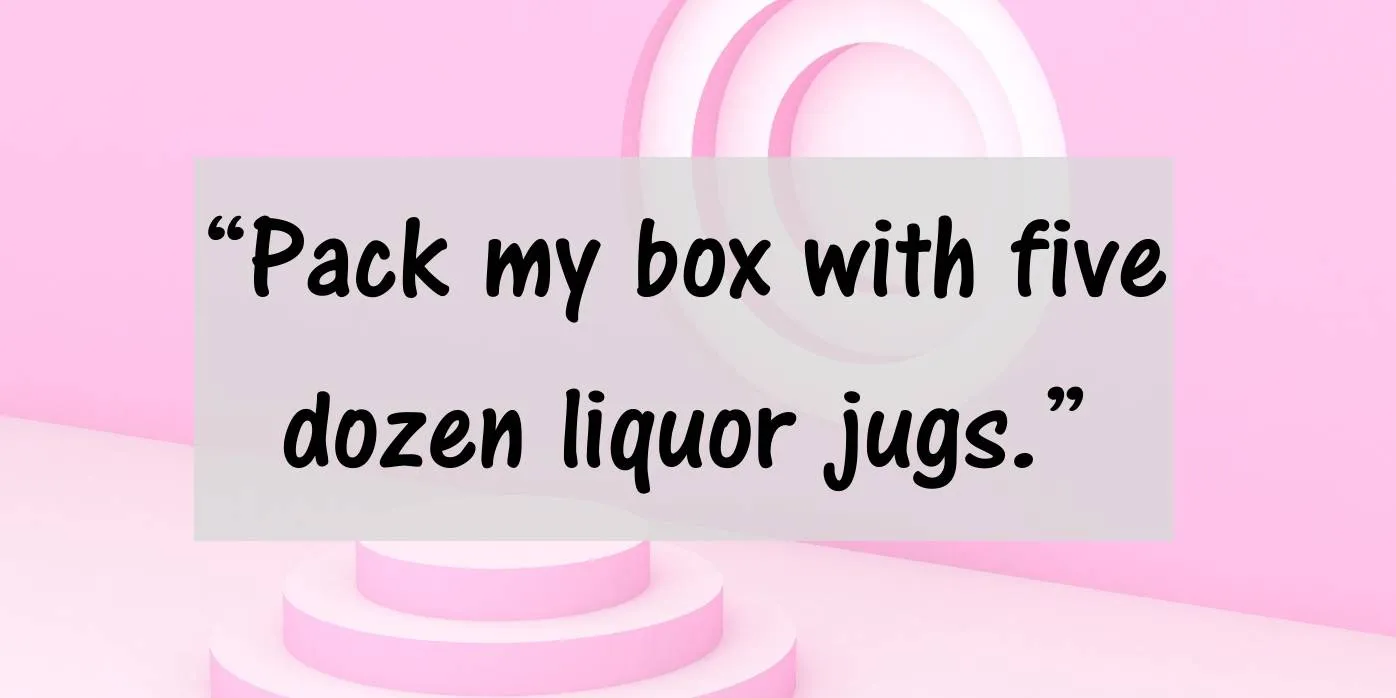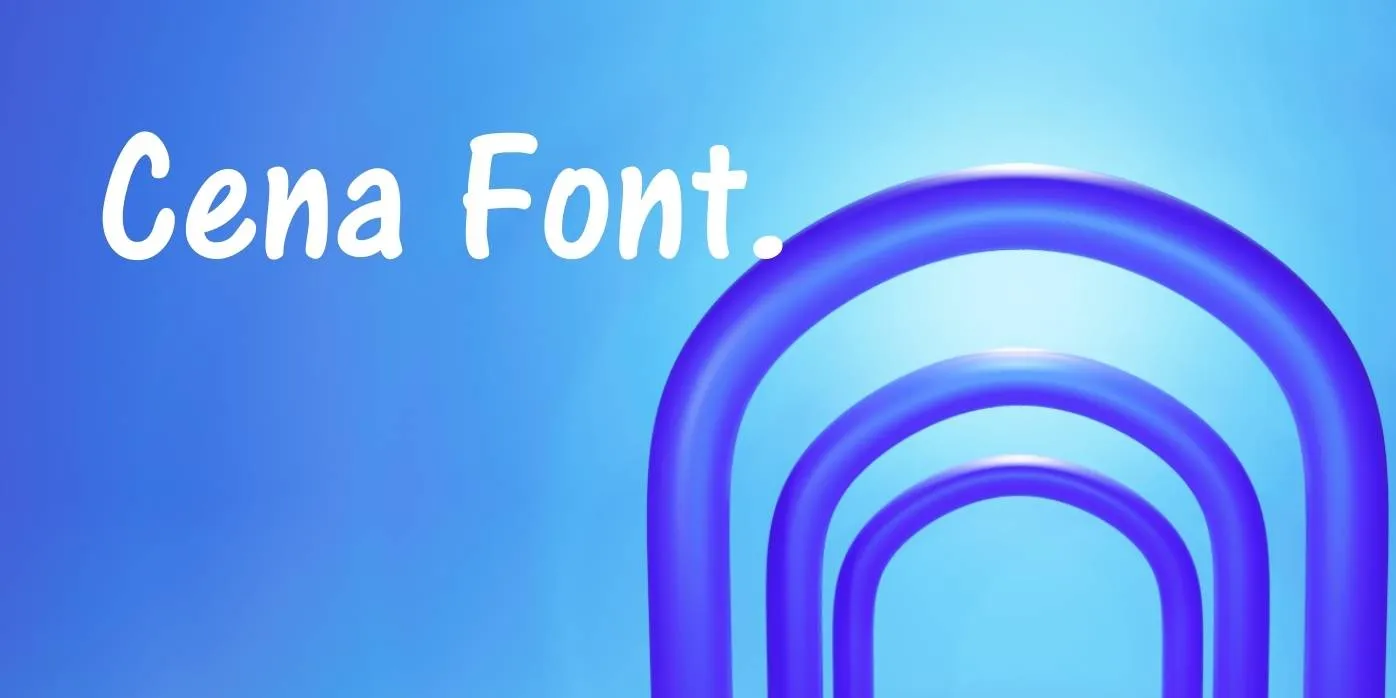
Cena Font
Here, we are consulting on the tremendous and classic typeface that gets massive popularity in the designing industry named Cena Font. This gorgeous font family was developed by a lot of work of an intelligent manufacturer Luis Bandovas. This marvelous font belongs to the Sans-Serif typeface. This stylish typeface is available in almost 12 unique and popular styles and contains six classy and special weights.
Some most popular weights are Italic, Bold and so on. Actually, these weights increase their performance while used in designs. Open Sans Font is the most alternative font to this awesome typeface. This similar font works in the same manner as this cozy typeface.
This awesome font is best for the CSS family. Another good thing is that this stylish font comes in more than 242 advanced Glyphs. Its interesting characters increase their power and provide astonishing looks to your designs. This cozy typeface fulfills all the recuyirements of users and manufacturers.